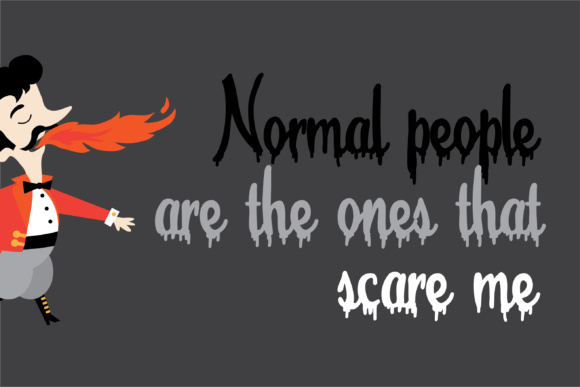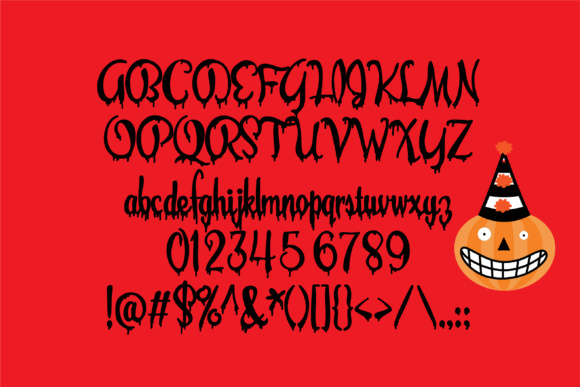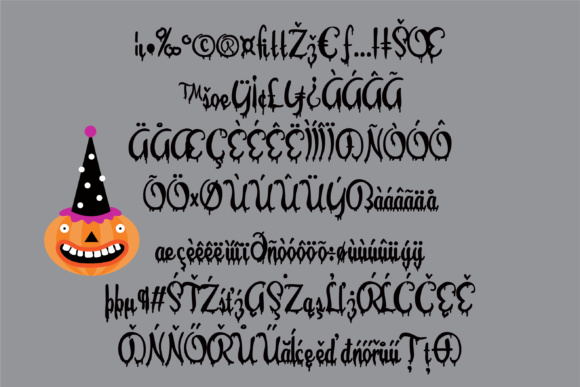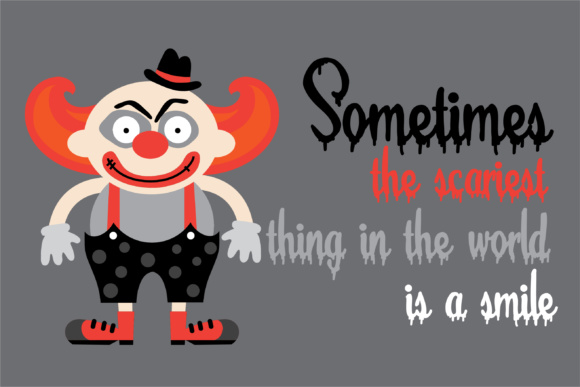
HomeScript FontsEvil Olivia Font Script Fonts Evil Olivia Font FacebookXPinterestWhatsApp Evil Olivia Font Poster 2 Evil Olivia Font Poster 3 Evil Olivia Font Poster 4 Evil Olivia Font Poster 5 About Evil Olivia Font The Evil Olivia is a pretty, hand-written script which is dripping with evil goo. DOWNLOAD ON CREATIVE FABRICAThis font is sold and delivered by Creative Fabrica. Font Canyon may earn a commission if you buy through this link. People also explored Black/White Raglan Easter Styled Shirt Mockup Photo Styll Love Font Kirvy Font Midas Like Father Like Son Font Millenial Script Font Break a Leg Font Blapuhy Font Brittany Rays Duo Font 355 0 TagsEvil Olivia Font Previous articlePN Octopus Socks FontNext articleCarbohydrate Font LEAVE A REPLY Cancel reply Comment: Please enter your comment! Name:* Please enter your name here Email:* You have entered an incorrect email address! Please enter your email address here Website: Save my name, email, and website in this browser for the next time I comment. Personal Use Free Lost Treasure Personal Use Free Read more about this font Houstonville Personal Use Free Read more about this font DangeRNighT Font Personal Use Free Read more about this font Harmony Personal Use Free Read more about this font BLOG 5 Fonts That Will Dominate Design Trends in 2026 5 Fonts for 2026 That Will Dominate Design Trends Typography plays a critical role in visual communication, and as we look ahead to 2026, it’s... Exploring Font Trends Top 7 Google Fonts Alternatives for Faster and Privacy-Friendly Web Design (2025) The 10 Best Handwriting Fonts to Add Personality to Your Designs